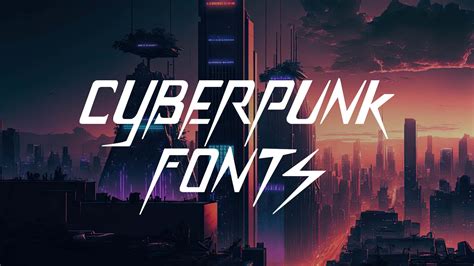
Future Font Generator. Kosmics italic by billy argel fonts. Futuristic fonts are great for technology type projects and convey a sense of what’s to come.
Try these 50 free futuristic fonts to help make your. Web check out these futuristic fonts if you want a modern design. Futuristic fonts are best used for contemporary or modern designs. There are fonts that evoke nostalgia, but are there fonts that can take you to the future? Kosmics italic by billy argel fonts. Futuristic fonts are great for technology type projects and convey a sense of what’s to come. Web create text graphics with futuristic fonts. Web looking for future fonts? Web express yourself with the world's easiest design program. Every font is free to download!
Web check out these futuristic fonts if you want a modern design. Just use the futuristic font generator and see the. Web check out these futuristic fonts if you want a modern design. Web create text graphics with futuristic fonts. Futuristic fonts are best used for contemporary or modern designs. Futuristic fonts are great for technology type projects and convey a sense of what’s to come. You can then save the. Every font is free to download! Web express yourself with the world's easiest design program. Web looking for future fonts? Create a design in canva.